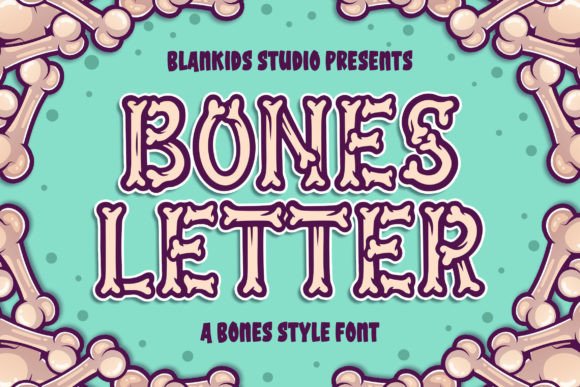
Bones Letter: A Spooky Typeface for Halloween and Beyond
In the world of typography, few fonts manage to capture the essence of a theme as effectively as Bones Letter. This display font is not just a collection of letters; it's a visual narrative that tells a story of eerie elegance and playful horror. With its intricate design featuring bones and other skeletal elements, Bones Letter is more than just a typefaceβit's a statement.
For those who are passionate about design, whether they're professionals, hobbyists, or educators, Bones Letter offers a unique opportunity to infuse their work with a sense of mystery and whimsy. The font's ability to evoke a spooky atmosphere makes it particularly appealing during the Halloween season, but its applications extend far beyond seasonal projects.
Characteristics of Bones Letter
Bones Letter is characterized by its bold and distinctive appearance. Each letter is adorned with detailed bone structures, creating a visual effect that is both eye-catching and thematically consistent. The font's design is not only visually striking but also highly legible, making it suitable for a wide range of applications.
The use of bones as a design element adds a layer of depth to the font, transforming simple text into a compelling visual experience. This attention to detail ensures that Bones Letter stands out in a crowded market of fonts, offering something truly unique for designers looking to make an impact.
Applications of Bones Letter
The versatility of Bones Letter makes it an excellent choice for various design projects. From greeting cards and invitations to posters and branding materials, this font can be used to create a cohesive and thematic look. Its spooky aesthetic is particularly well-suited for Halloween-related designs, where the goal is to evoke a sense of fun and fright.
Designers can also use Bones Letter in non-seasonal contexts to add a touch of creativity and originality. For instance, a restaurant specializing in themed dining experiences might use the font for menu items or signage to enhance the overall ambiance. Similarly, a creative agency could incorporate Bones Letter into their branding to differentiate themselves from competitors.
Advantages of Using Bones Letter
One of the primary advantages of Bones Letter is its ability to convey a specific mood or atmosphere. The font's design elements are carefully crafted to elicit a sense of intrigue and excitement, making it ideal for projects that require a strong visual identity. This emotional resonance can help designers connect with their audience on a deeper level.
Another benefit of Bones Letter is its ease of use. Despite its complex design, the font is user-friendly and compatible with most design software. This accessibility allows both novice and experienced designers to experiment with the font without requiring advanced technical skills. Additionally, the font's availability in various formats ensures that it can be integrated into different projects seamlessly.
Use Cases for Bones Letter
Bones Letter has found a place in a variety of industries and creative fields. In the realm of graphic design, it is often used for promotional materials, such as flyers and banners, that aim to grab attention and create a memorable impression. Its bold and distinctive style makes it an effective tool for standing out in a competitive market.
In the education sector, Bones Letter can be utilized to create engaging learning materials that cater to students' interests. Teachers and educators can incorporate the font into lesson plans, presentations, or classroom decorations to make learning more interactive and enjoyable. This approach not only enhances the visual appeal of educational content but also helps to maintain students' engagement.
Considerations When Using Bones Letter
While Bones Letter is a powerful tool for designers, there are several considerations to keep in mind when using it. One of the key factors is the context in which the font will be applied. Although it excels in creating a spooky atmosphere, it may not be suitable for all types of projects. Designers should carefully evaluate the appropriateness of the font based on the intended message and audience.
Additionally, it's important to consider the readability of Bones Letter in different sizes and formats. While the font is designed to be legible, certain variations may require adjustments to ensure clarity. Testing the font in various scenarios can help designers achieve the best results and avoid potential issues.
Conclusion
Bones Letter is more than just a fontβit's a creative tool that can elevate any design project with its unique and captivating style. Whether used for Halloween crafts, branding, or educational materials, the font offers a versatile solution for designers seeking to make a lasting impression. By understanding its characteristics, applications, and considerations, users can harness the full potential of Bones Letter to enhance their work and engage their audience effectively.